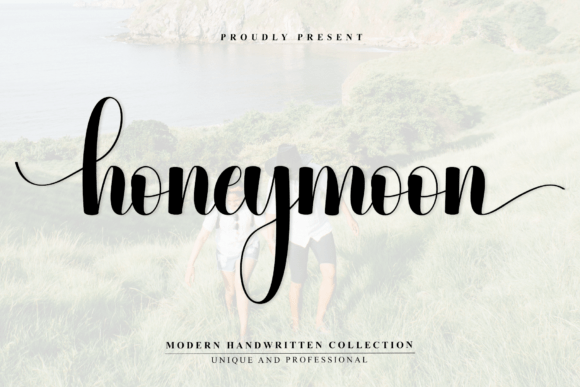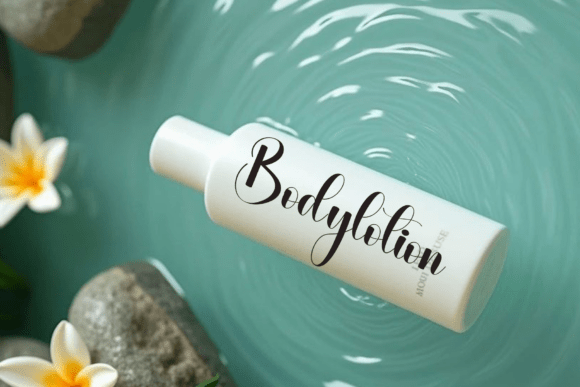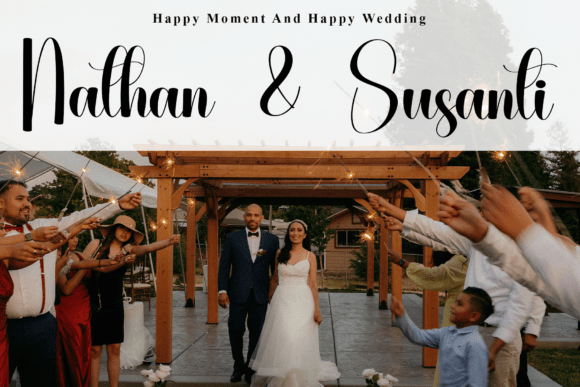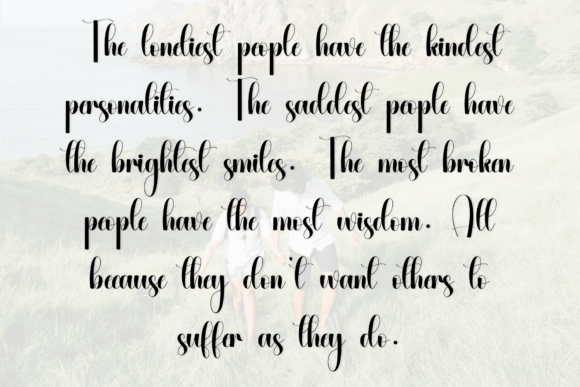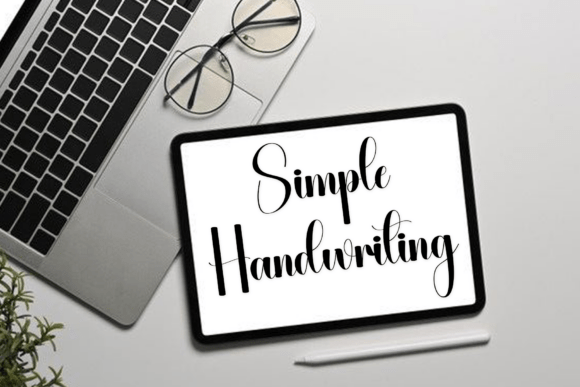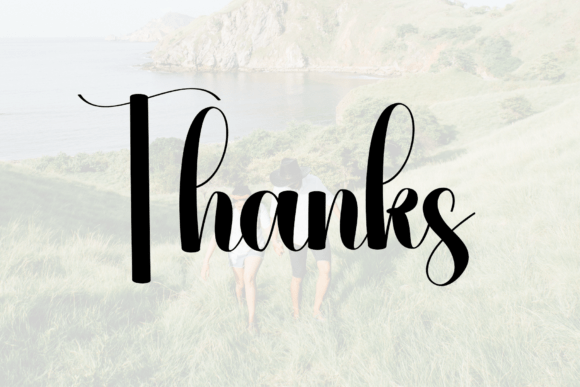
The Perfect Font for Your Dream Wedding Design
As I sat at my desk, staring at my computer screen, I couldn’t help but think of my own wedding day. The romance, the excitement, the love – it all came flooding back as I searched for the perfect font to capture the essence of my special day. And then, I found it: Honeymoon Font.
This stylish script font is more than just a pretty face; it’s a game-changer for designers looking to add a touch of elegance and sophistication to their designs. With its fluid brush strokes and dynamic curves, Honeymoon Font captures the essence of hand-painted calligraphy with a modern twist. Whether you’re designing a logo, invitation, or social media graphic, this font is sure to deliver both visual impact and versatility.
Honeymoon Font Key Features
- Unique Characteristics: Features a romantic and elegant script style with intricate details and flourishes, perfect for wedding invitations, wedding stationery, and other romantic designs.
Honeymoon Font Review
When I first laid eyes on the Honeymoon Font, I was immediately struck by its whimsical and romantic charm ✨. The elegant script style and flowing connections between letters evoke a sense of luxury and sophistication. The font’s versatility allows it to be used in a variety of contexts, from wedding invitations to travel brochures.
One of the standout features of the Honeymoon Font is its wide range of weights and styles, which makes it easy to customize and adapt to different design needs. The font’s legibility is also impressive, with clear and crisp letterforms that make it easy to read even at smaller sizes.
- ⚠️ Limited language support: The Honeymoon Font is primarily designed for Latin-based languages, which may limit its use in multilingual projects.
- ⚠️ Limited numeral options: While the font includes a range of numeral styles, it would be beneficial to have more options to match the various weights and styles of the font.
Overall, I’m impressed with the Honeymoon Font’s unique charm and versatility. While it may have some limitations, it’s a great choice for designers looking to add a touch of romance and sophistication to their projects.
Honeymoon Font Practical Application Guide
– Use it for headings and titles to add a touch of elegance.
– Pair it with simple backgrounds to let the font be the focal point.
– Use it for creating custom invitations, wedding stationery, and other romantic designs.
– Experiment with layer styles and effects to add depth and interest.
– Use it for creating wedding presentations, love letters, and other romantic documents.
– Experiment with different font combinations to create a unique look.
Honeymoon Font is perfect for:
– Love letters and romantic notes
– Wedding presentations and speeches
– Romantic gift tags and labels
Alternatives to Honeymoon Font
Aurora Script
Aurora Script is a beautiful, elegant script font that is perfect for creating a romantic and whimsical feel. It features connected letters, flowing lines, and a soft, romantic touch. When to use: Wedding invitations, romantic greeting cards, and any design project that requires a touch of elegance and sophistication.
Comparison to Honeymoon Font: While Honeymoon Font is a more modern and sleek font, Aurora Script is a more traditional and classic choice. Aurora Script has a more feminine touch and is perfect for designs that require a softer, more romantic feel.
What is the recommended font size for body text using Honeymoon Font?
The recommended font size for body text using Honeymoon Font is between 14px and 16px. This size range provides optimal legibility and readability, making it suitable for various design contexts, including digital and print materials.